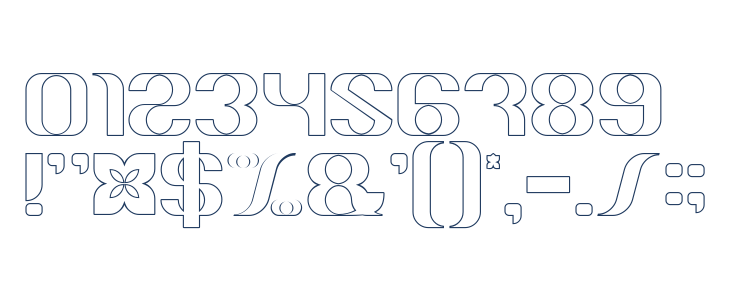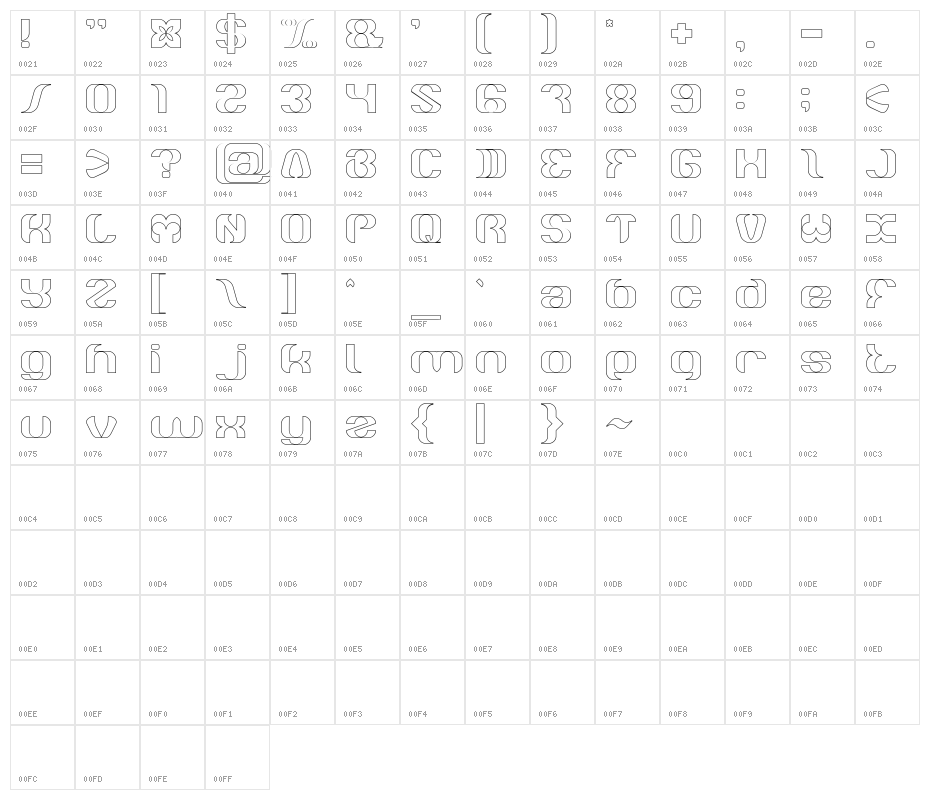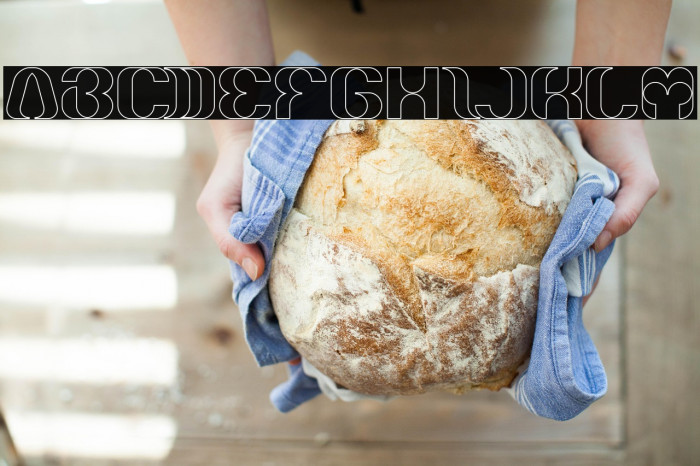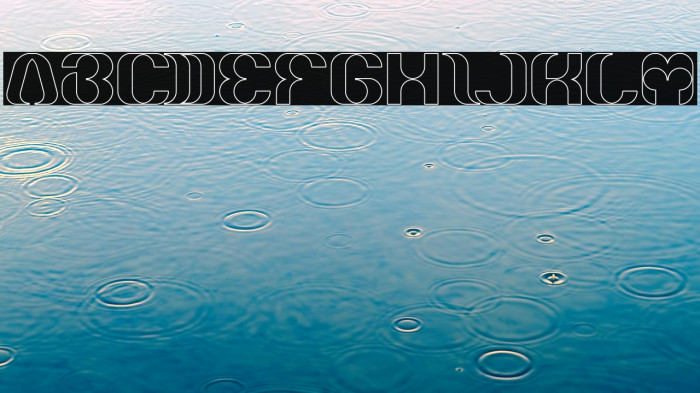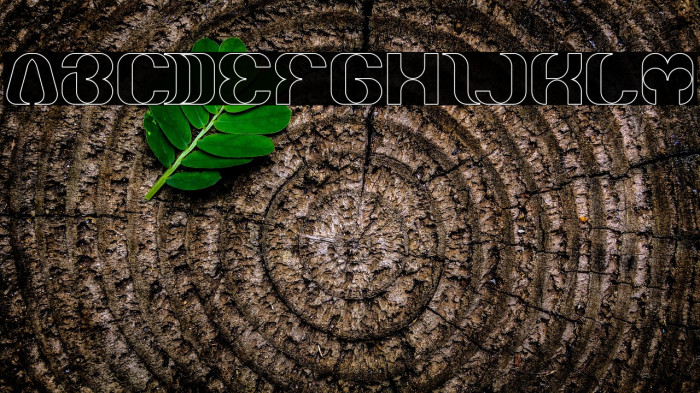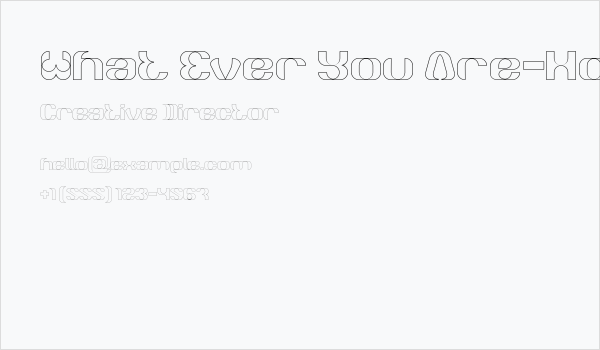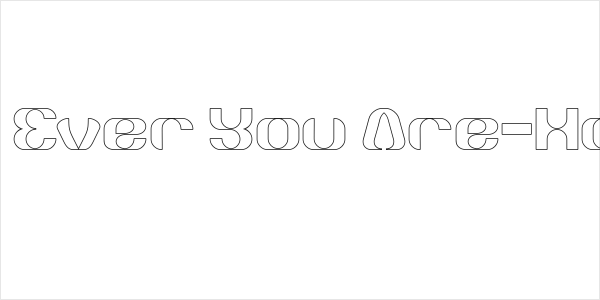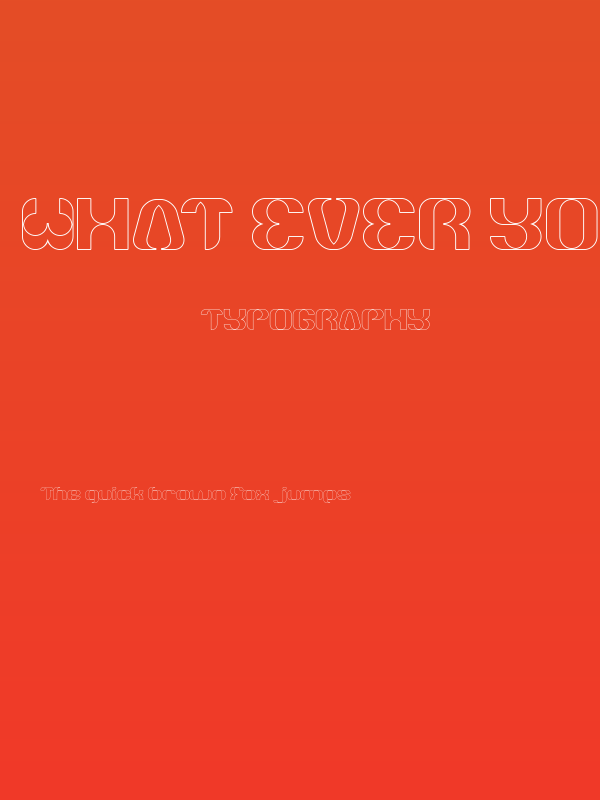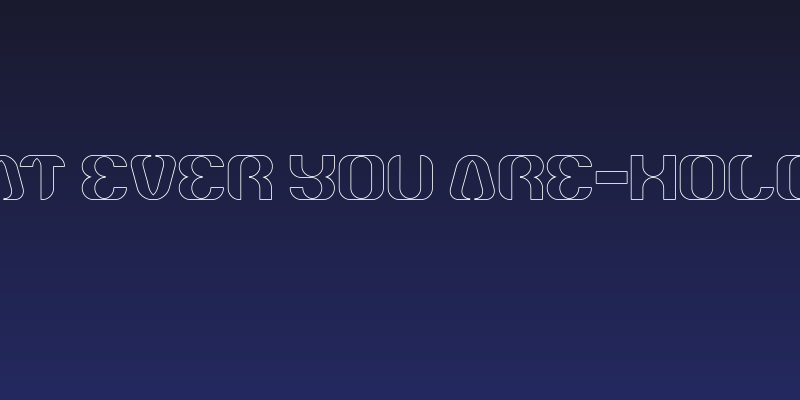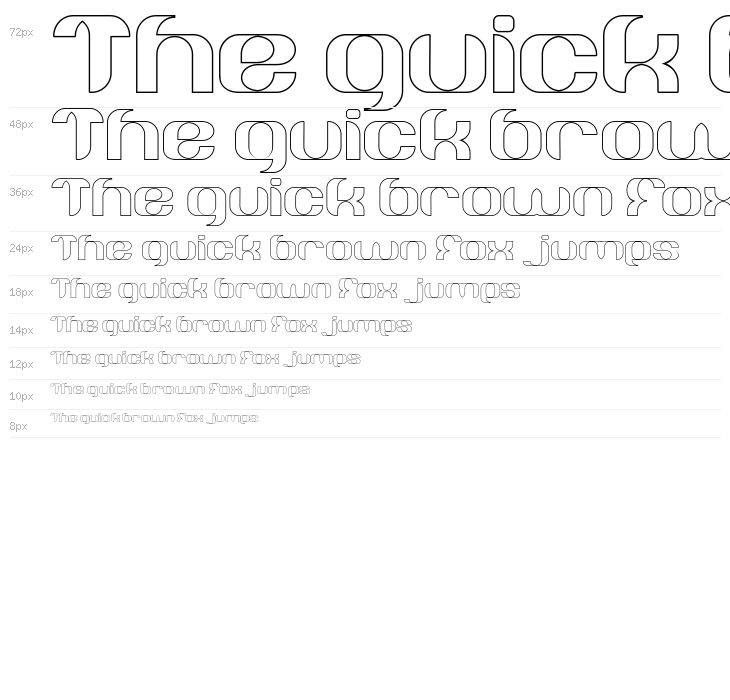
What Ever You Are-Hollow Font
What Ever You Are-Hollow Description
This font features a unique hollow design with a futuristic and geometric aesthetic. The characters are outlined, creating a sense of depth and dimension. The uppercase and lowercase letters maintain a consistent style, with rounded edges and a modern look. The numerals and special characters follow the same design principles, ensuring uniformity across all glyphs. This font's distinct appearance makes it stand out, ideal for creative and bold design projects.
| Proposed Projects | Ideal for branding, posters, album covers, and digital art projects that require a modern and eye-catching typeface. |